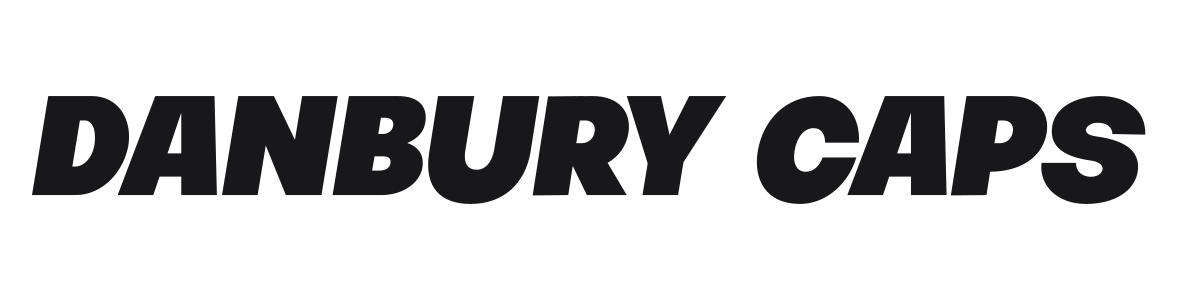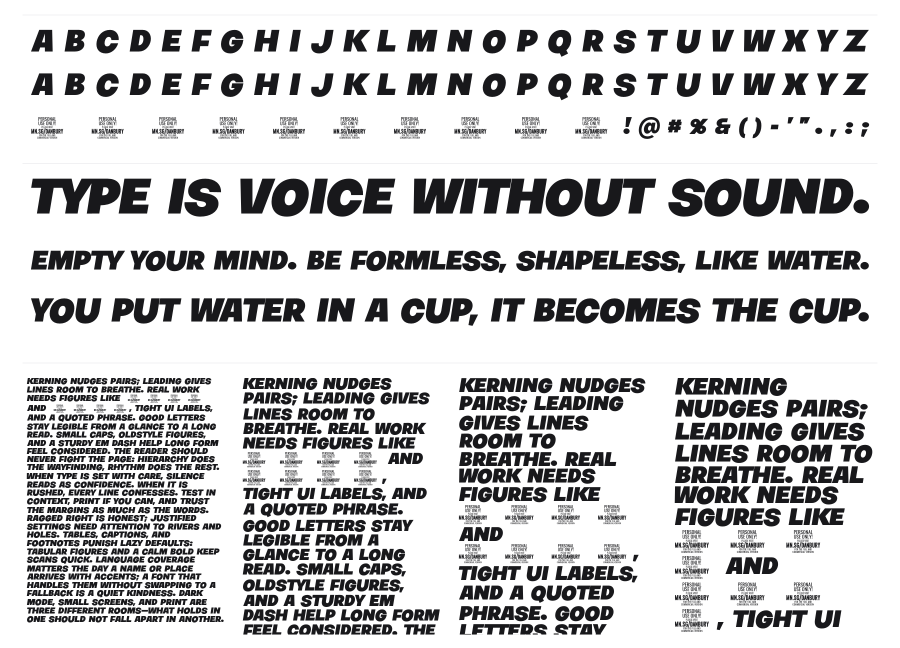
Danbury Caps
Danbury Caps is a heavy condensed italic grotesque built for maximum impact at large sizes. The sharp forward slant and bold stroke weight give it an unmistakable sense of velocity, making it a natural choice for sports campaigns, headlines, and logos. It ships as part of the wider Danbury family alongside regular and bold upright styles.